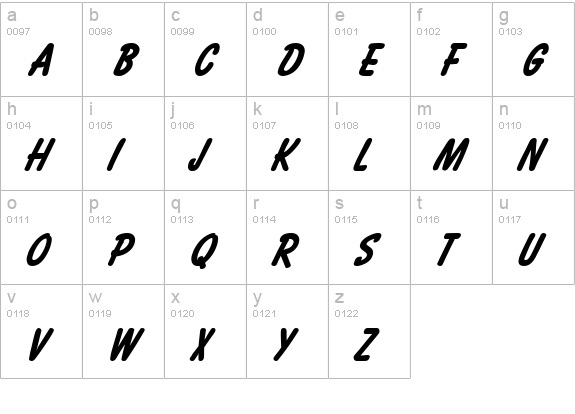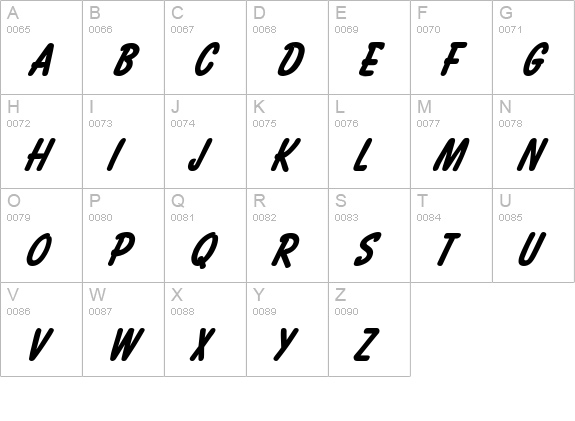
Bassett H Italic is a distinctive, italic variant in the Bassett typeface family \xE2\x80\x94 well suited to design and typography projects.
Bassett H Italic is a sophisticated and elegant font that exudes a sense of class and refinement. Its sleek and graceful curves make it perfect for adding a touch of sophistication to any design project. The italic style adds a sense of movement and dynamism, making your text come alive on the page. This font is versatile and can be used for a wide range of design applications, from formal invitations to modern branding. Its timeless appeal ensures that it will never go out of style. Best of all, Bassett H Italic is available for free download at FontsMarket.com, making it accessible to designers of all levels. Don't miss out on the opportunity to add this stunning font to your collection today!